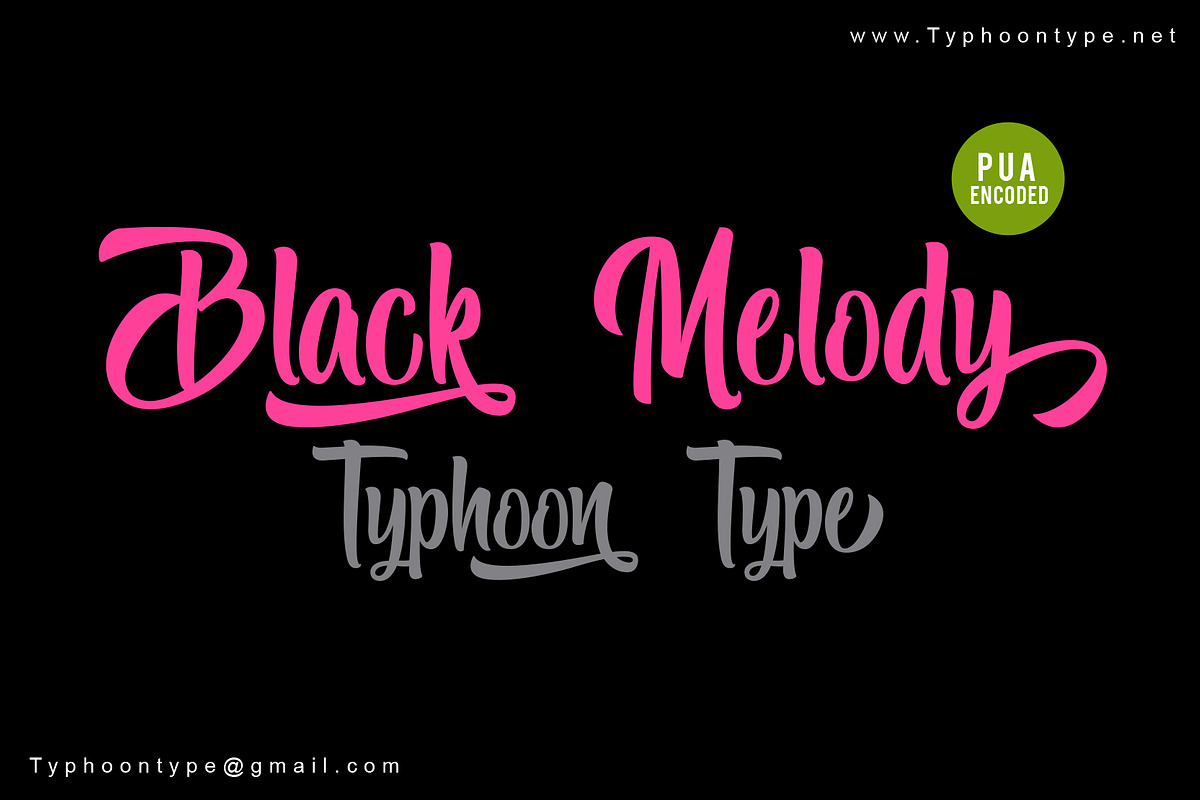
Black Melody font
Black Melody This font perfect for logos, name tag, advertising, product packaging, clothing, social media & greeting cards.
Why Black Melody font is worth a look
Black Melody font by TyphoonStudio fits naturally into Branding, posters, packaging, typography.